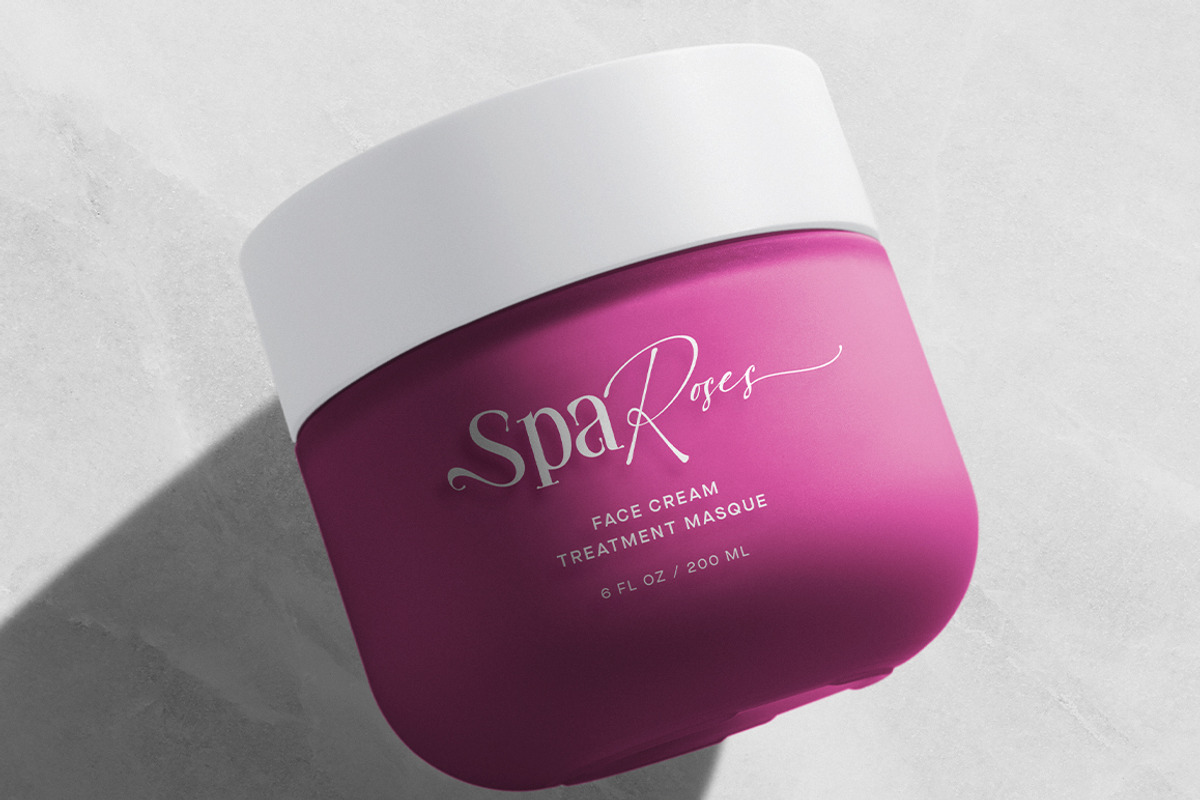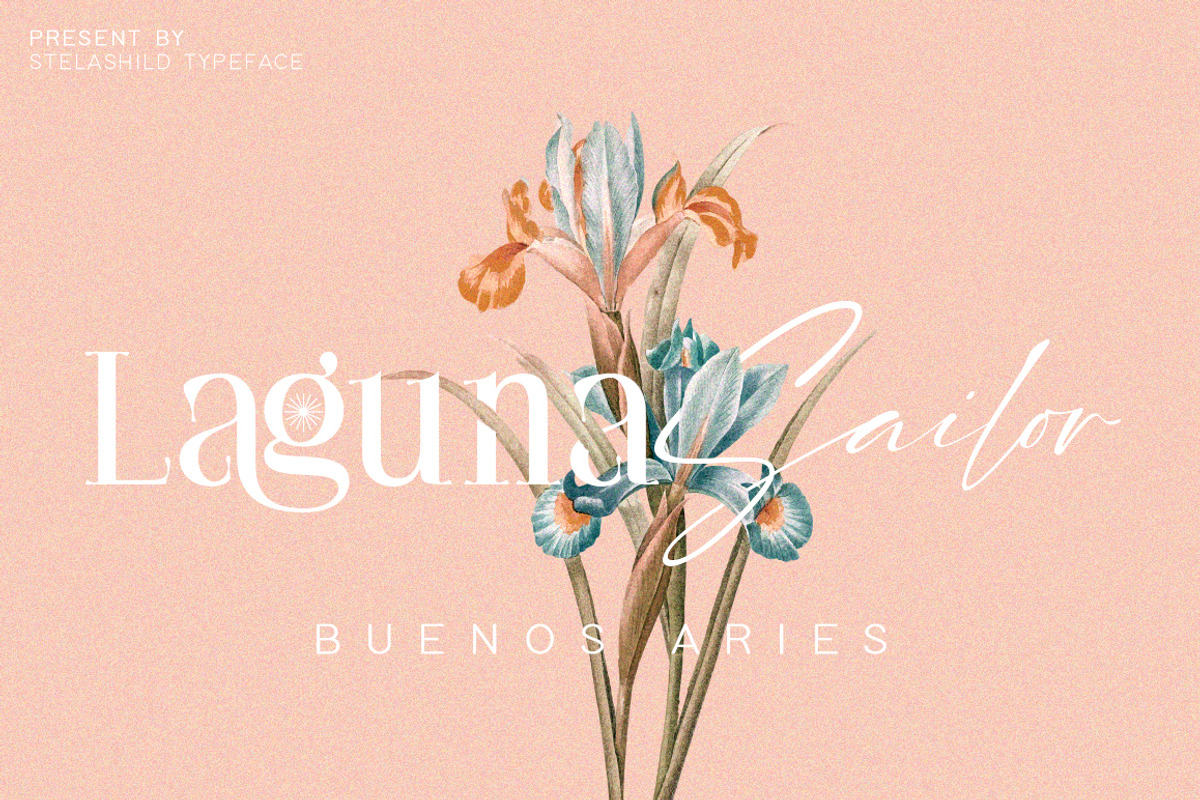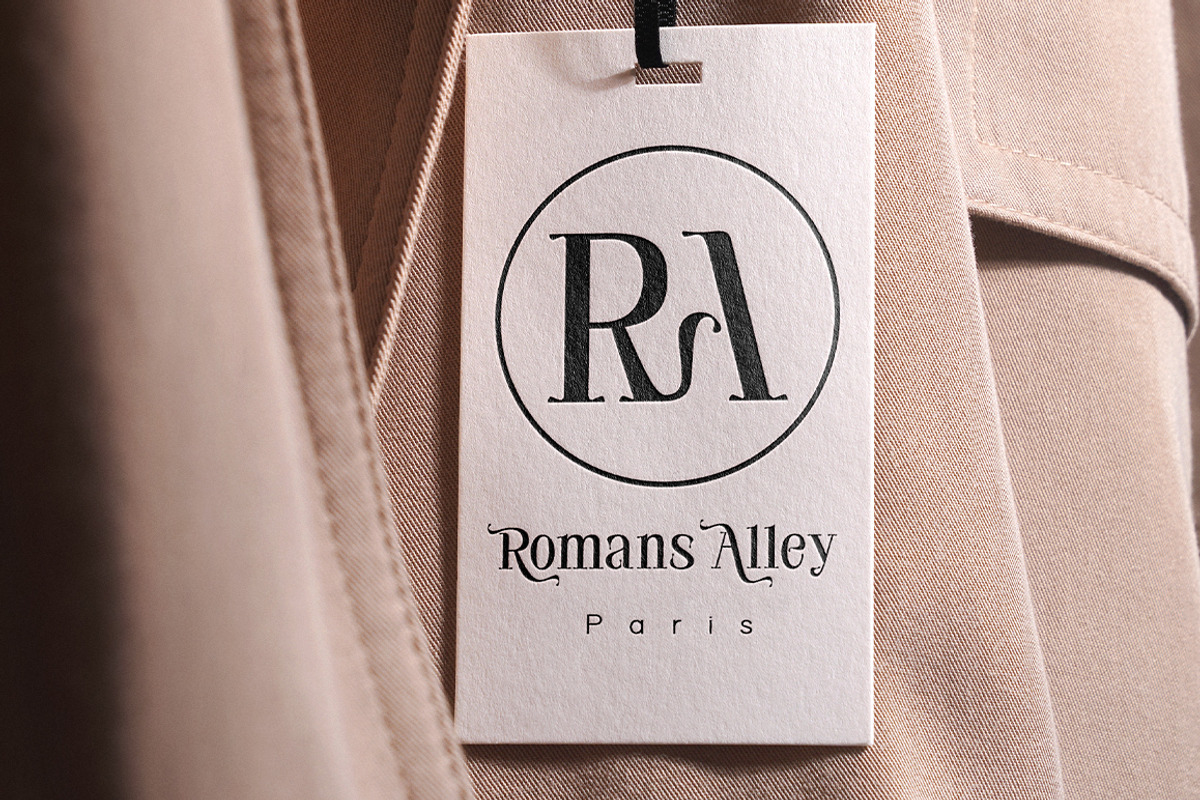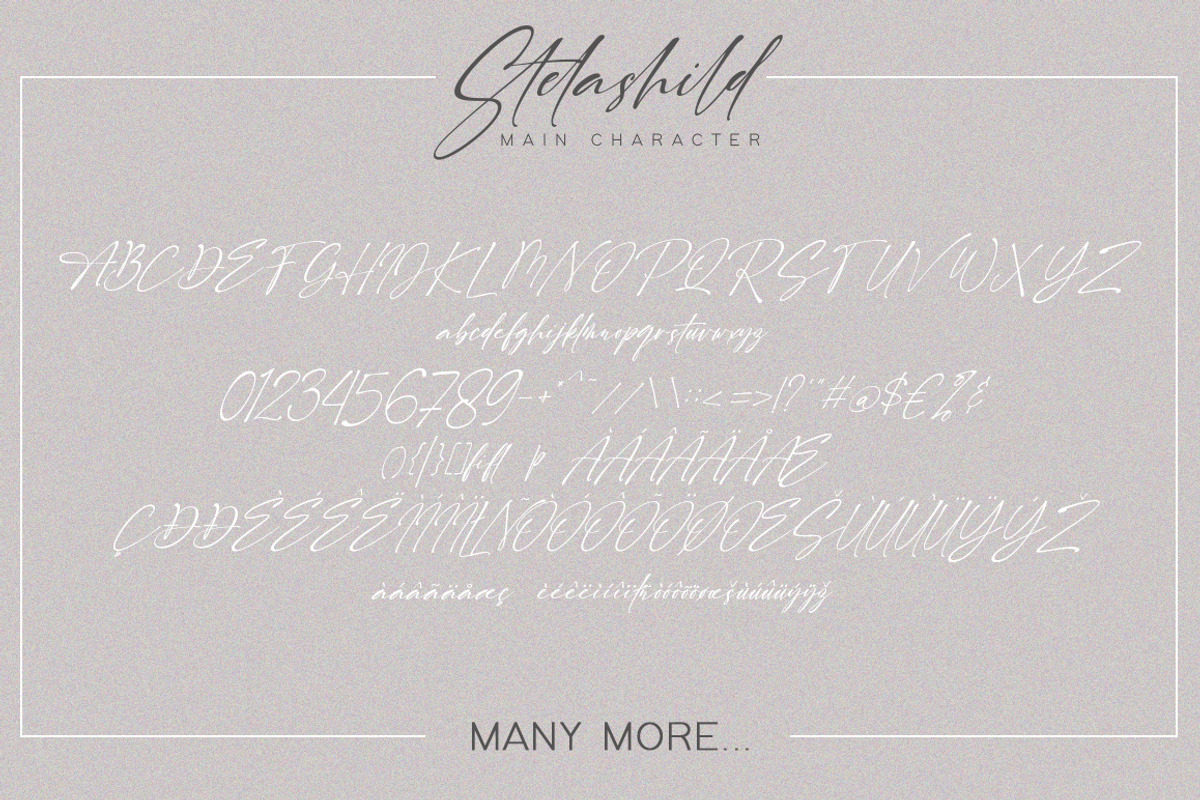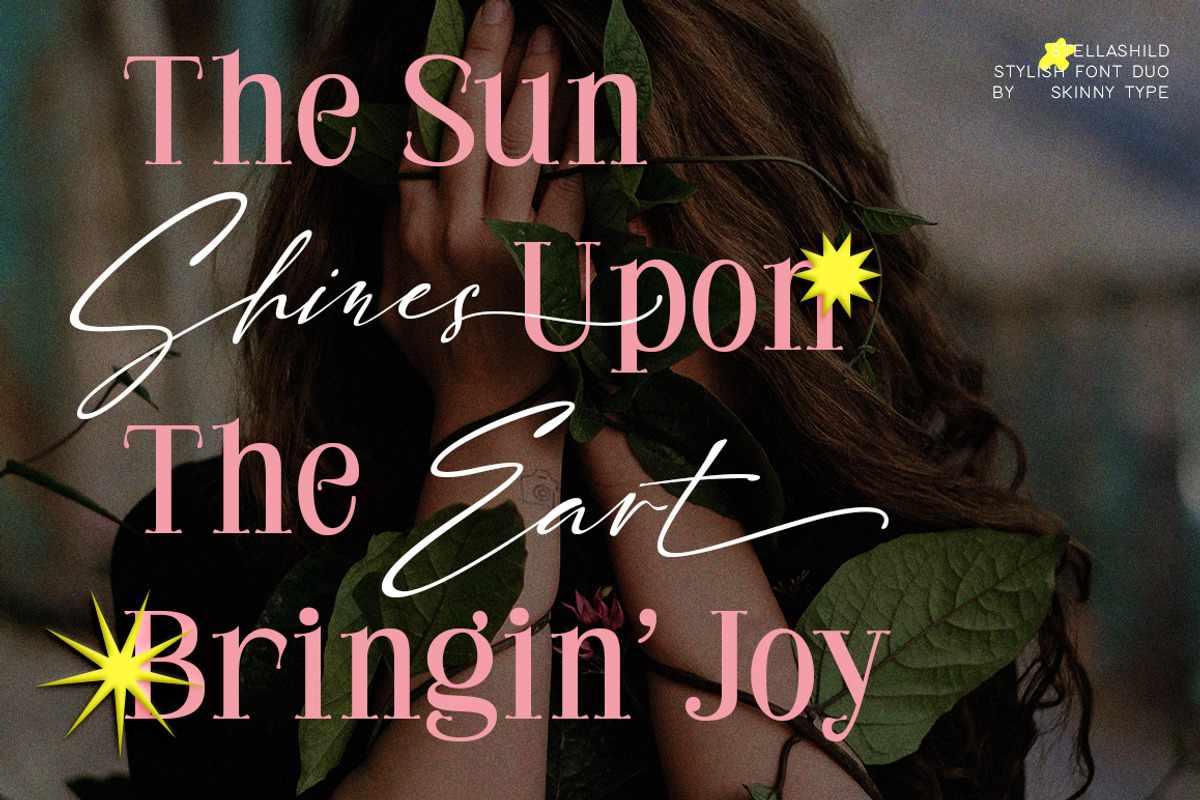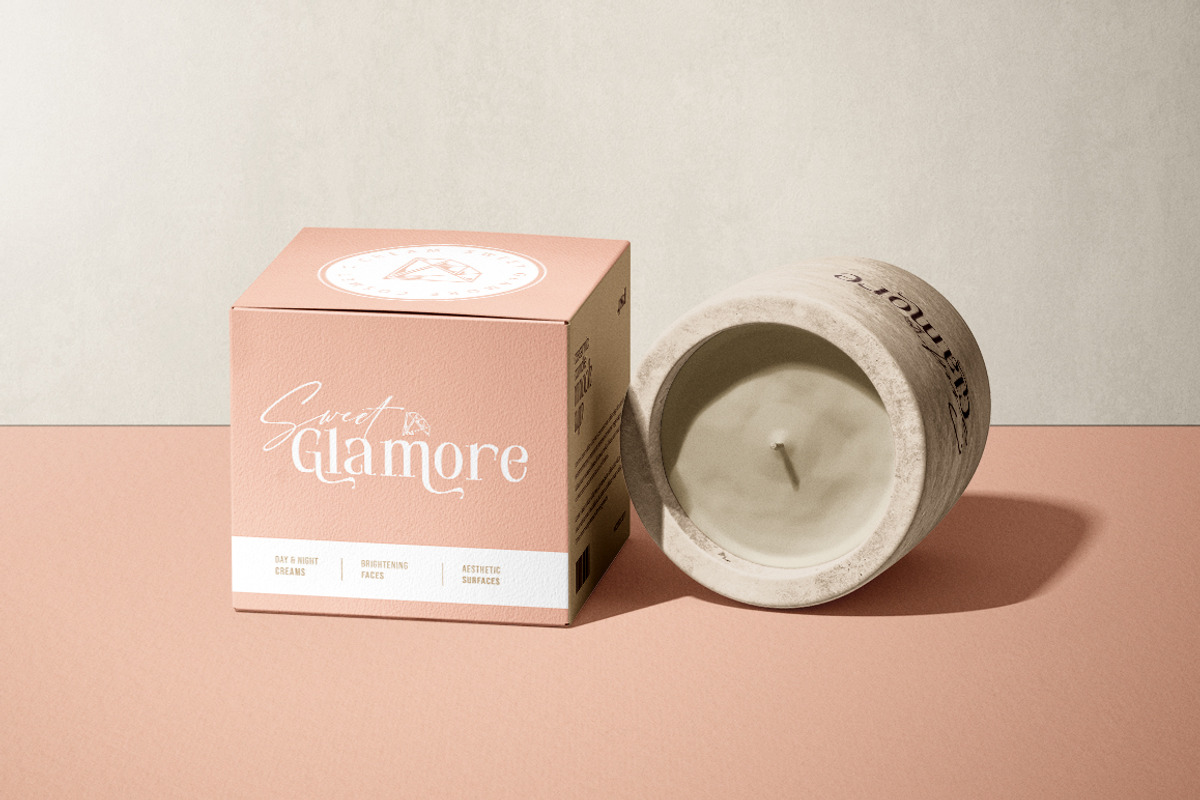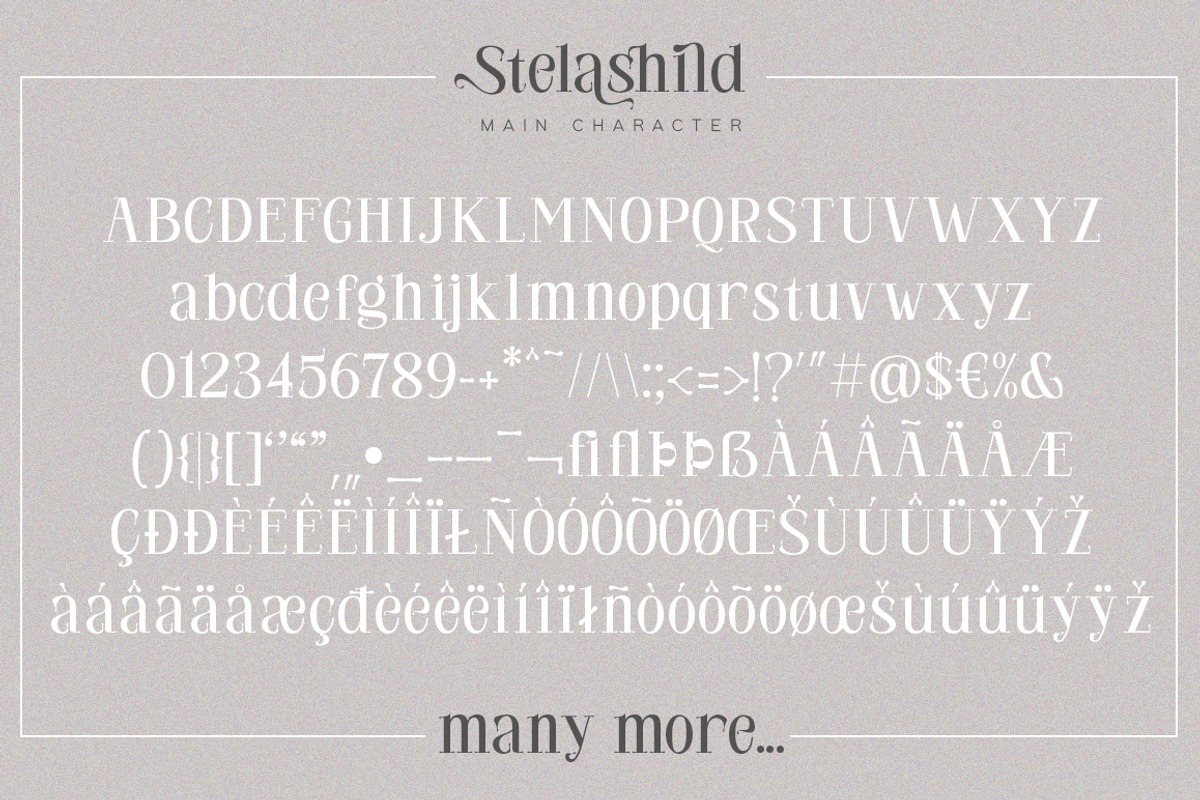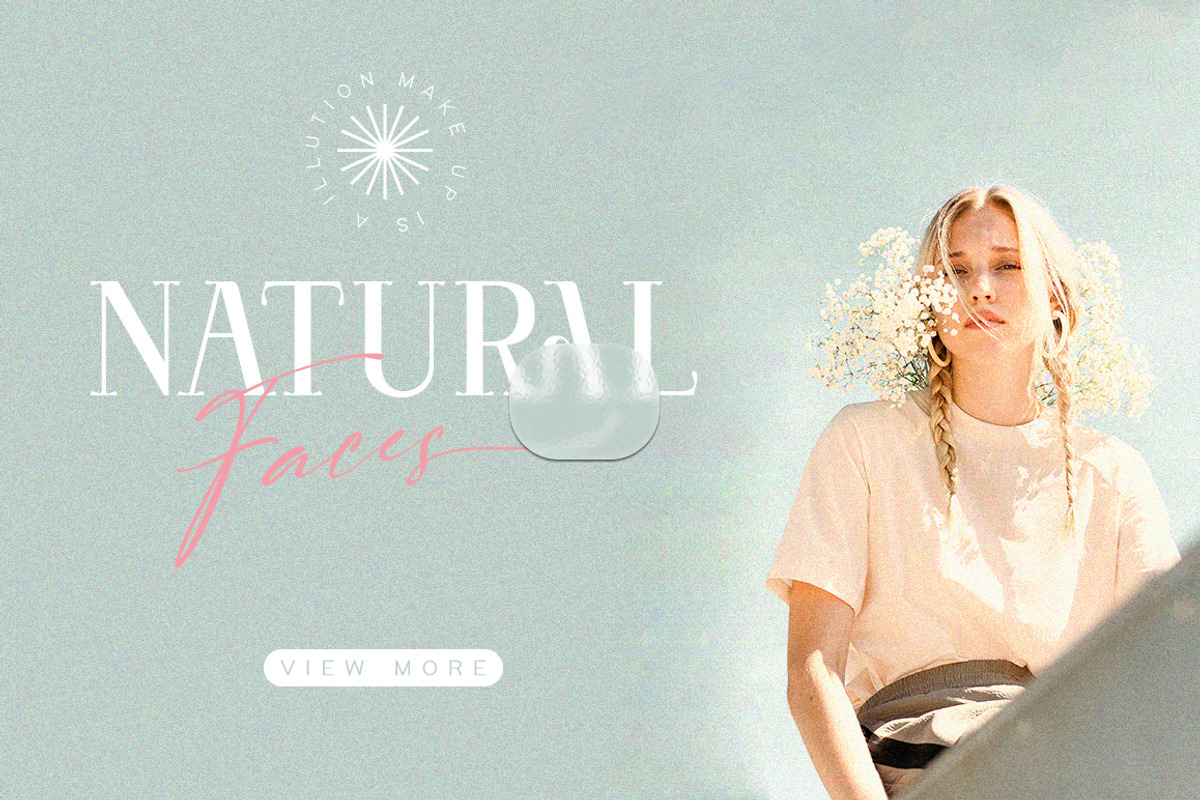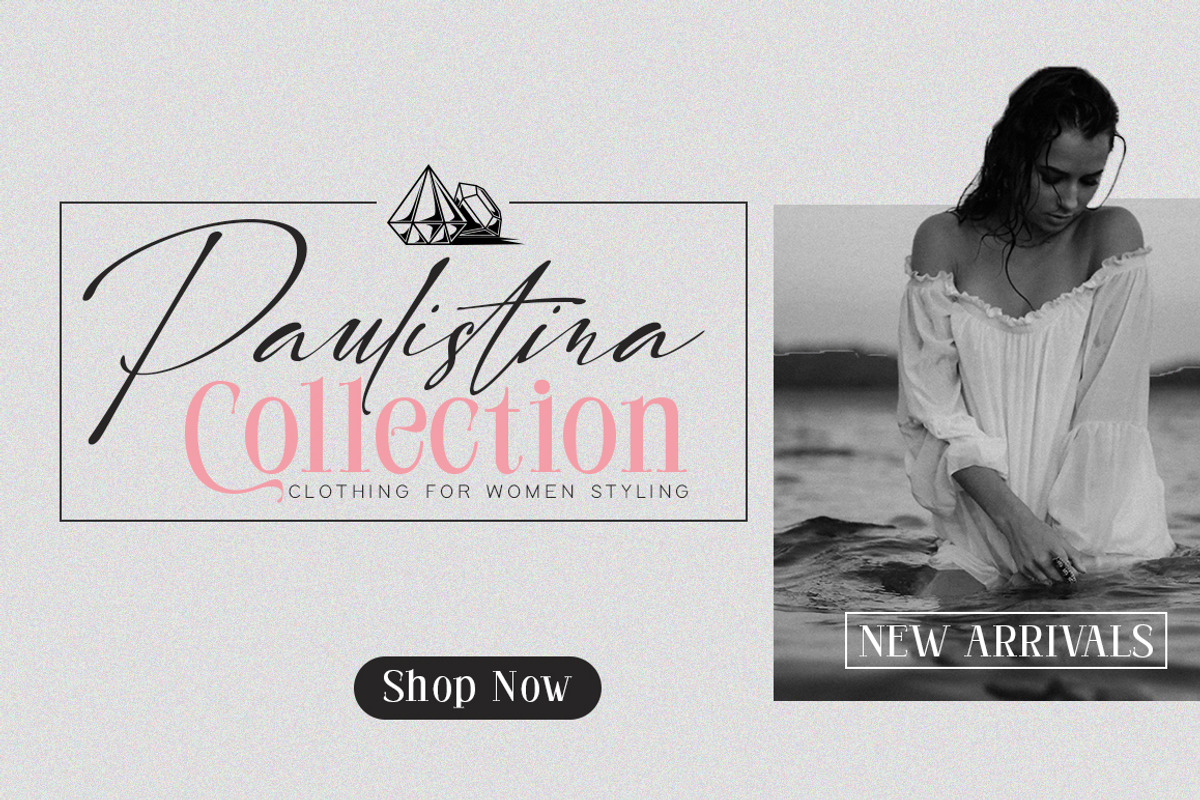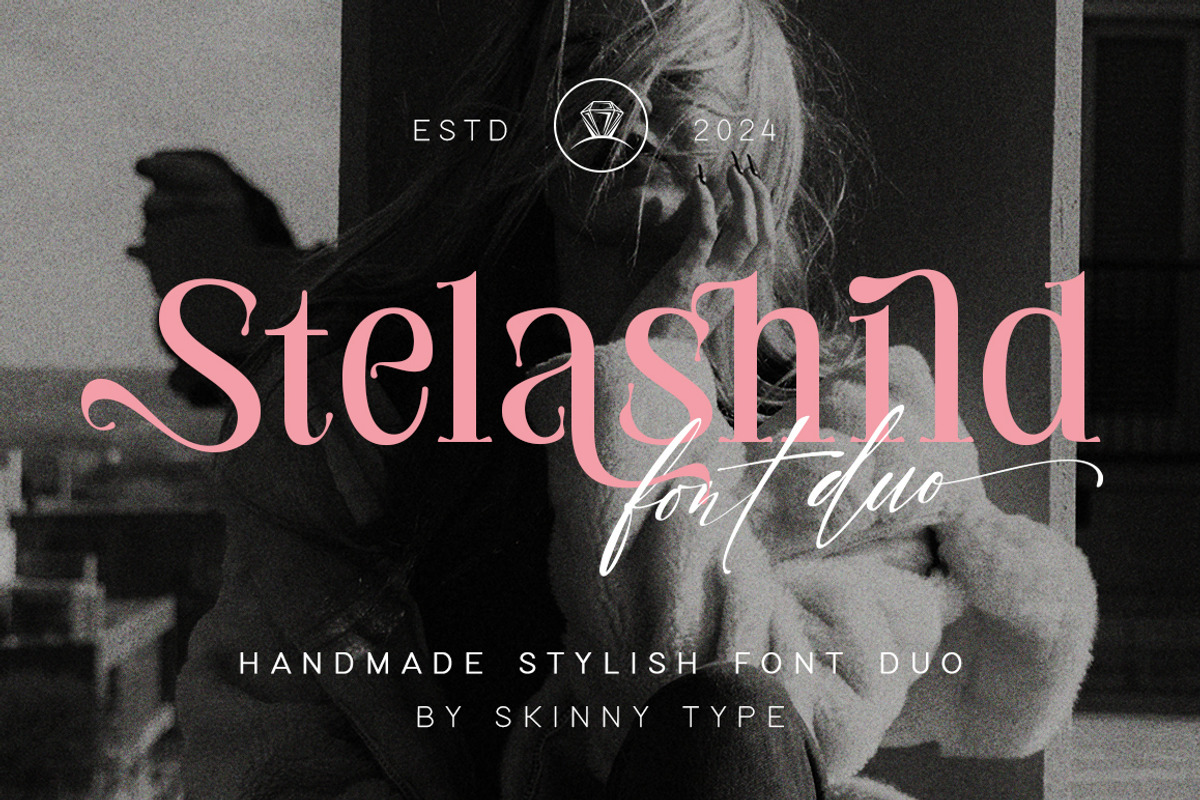
Stelashild - Authentic Font Duo
Stelashild Duo is a majestic, luxurious and impactful handwritten script font, serif font with clean ligatures and alternates making for a harmonious pair.
Handwritten scripts come with a large number of ligatures giving you several options for your designs. Stelashild Duo supports western, southern, and southeastern America.
Stelashild Duo is perfect for branding, web titles, logos, quotes, movie titles and more... Promote your next project today with this powerful duo and differentiate your message from the rest.